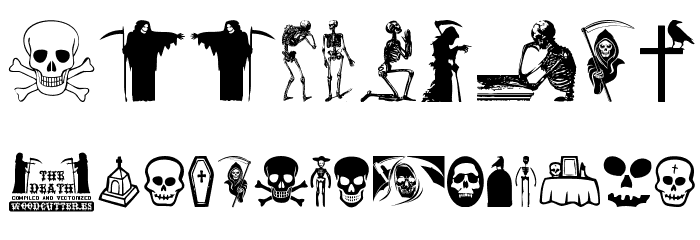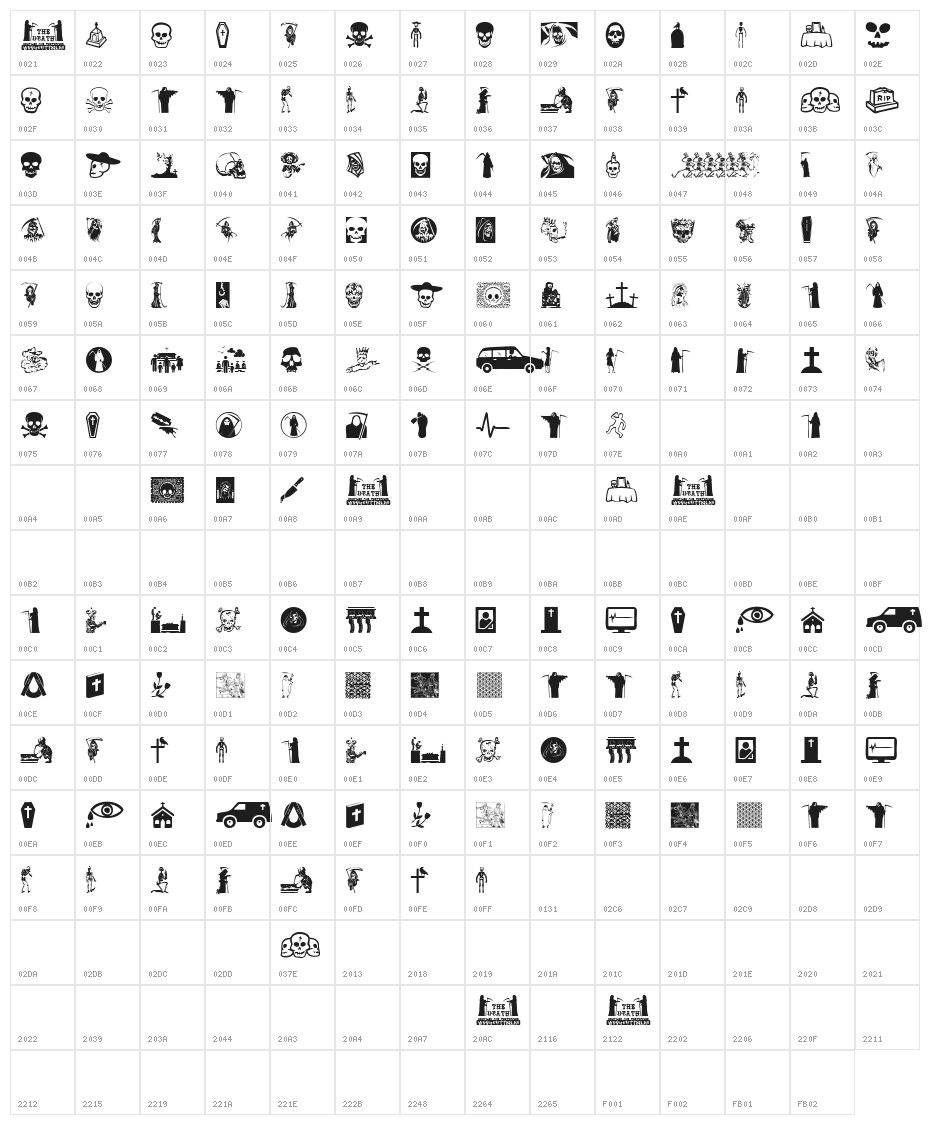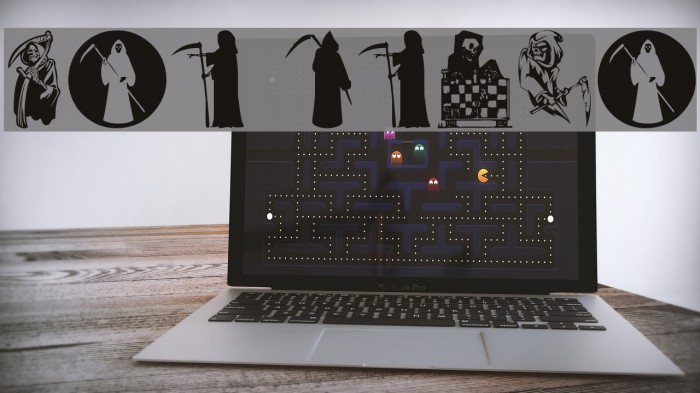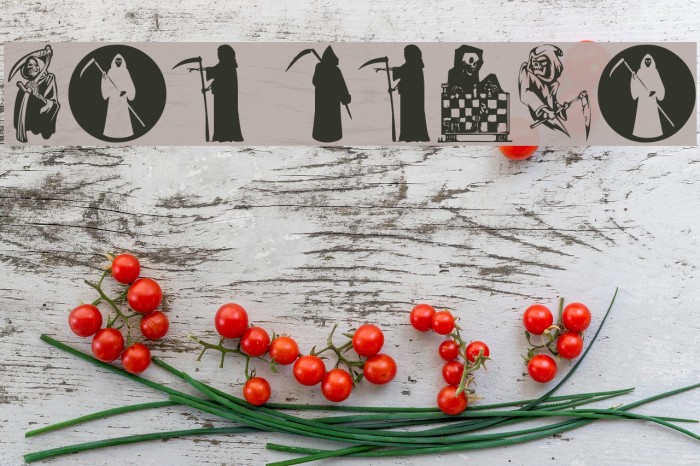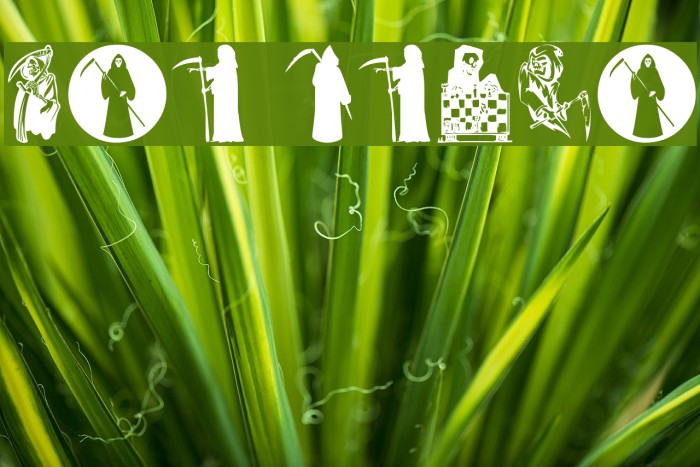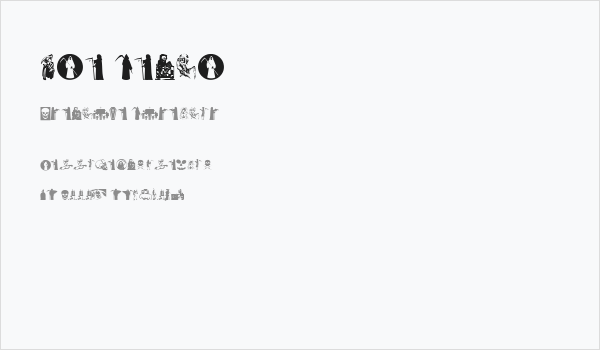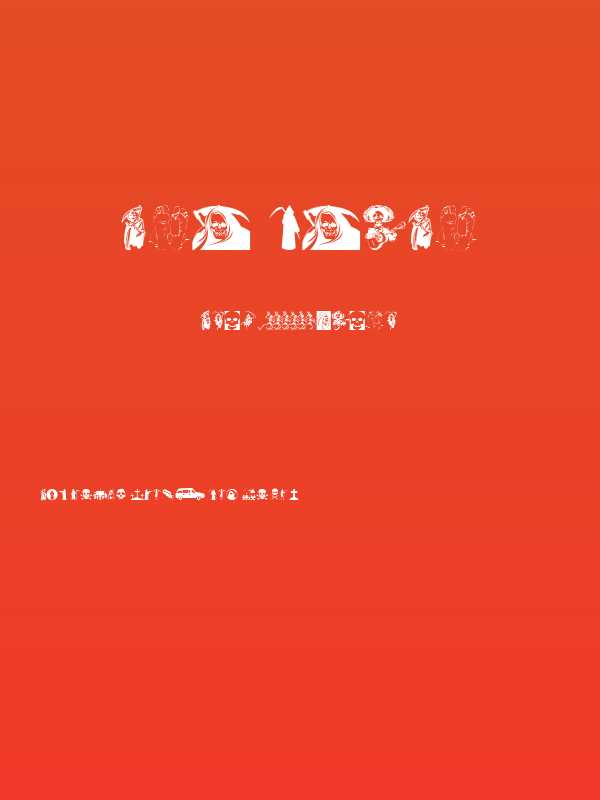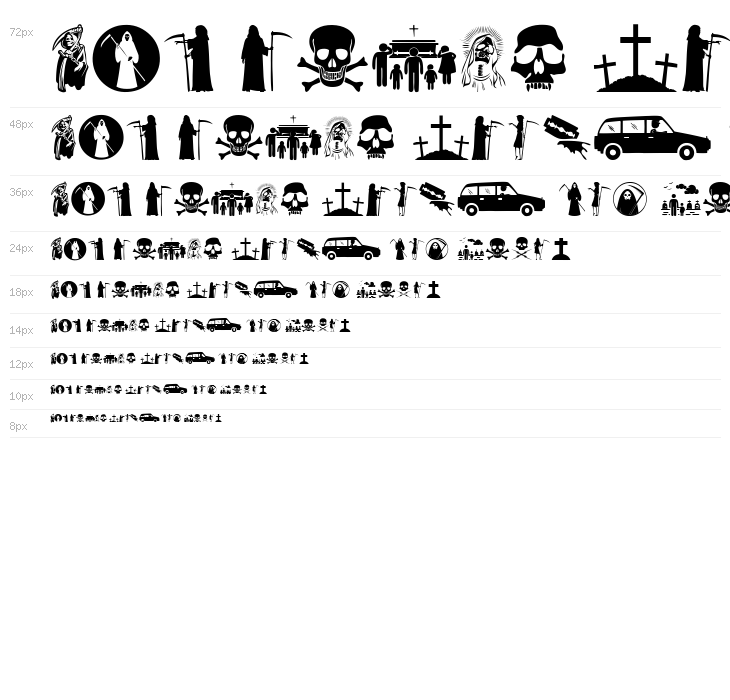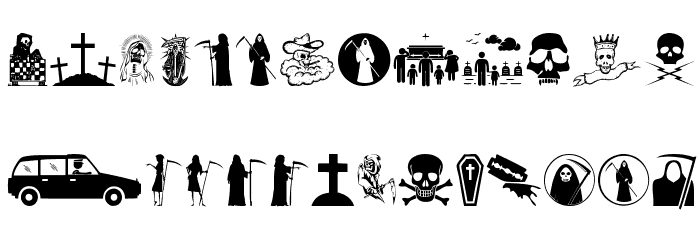
The Death Font
The Death Description
A decorative dingbat set featuring a wide variety of death-related and macabre illustrations, including skulls, grim reapers, coffins, skeletons, gravestones, hearses, and other funeral or horror motifs. The glyphs are rendered in high-contrast black and white, with bold, graphic lines and a mix of detailed and simplified styles.
| Overall Style | Decorative, Horror, Macabre |
| Use Case | Icons, Decorative elements, Themed graphics |
| Proposed Projects | Halloween invitations, horror posters, themed party decor, tattoo flash sheets, comic art, spooky branding. |